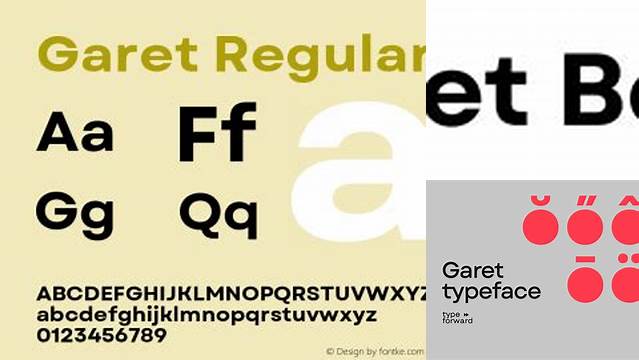
Hey guys! Looking for that perfect bold font to make your designs pop? Well, you've come to the right place! In this article, we're diving deep into the world of Garet Bold Font, a fantastic typeface that can add a touch of sophistication and strength to any project. We'll explore everything from what makes it so special to where you can snag a free download in TTF format. So, let's get started!
What is Garet Bold Font?
Garet Bold Font is a striking typeface known for its strong and contemporary design. It's a versatile font that works well in a variety of contexts, from headlines and logos to body text and branding materials. Its clean lines and bold strokes make it highly legible, ensuring your message is conveyed with clarity and impact. The font's modern aesthetic makes it a popular choice among designers looking to create a sleek and professional look. Whether you're working on a website, a poster, or a corporate document, Garet Bold Font can help you achieve a polished and eye-catching result. The font's versatility also extends to different design styles; it can be used in minimalist designs to add a bold statement or in more complex layouts to provide a strong visual anchor. It's the kind of font that can elevate any project, making it a must-have in your font library. The attention to detail in its design ensures that each character is perfectly formed, contributing to the overall harmonious look of your text. This meticulous craftsmanship is what sets Garet Bold Font apart and makes it a favorite among design professionals.
Why Choose Garet Bold Font for Your Projects?
Choosing the right font is crucial for any project, and Garet Bold Font offers a compelling blend of style and functionality. Its bold weight commands attention, making it ideal for headlines, titles, and other elements where you need to make a statement. The font’s clarity ensures readability, even at smaller sizes, making it suitable for body text as well. Garet Bold Font exudes a sense of confidence and professionalism, making it an excellent choice for corporate branding and marketing materials. Whether you're designing a website, a brochure, or a logo, this font can help you convey your message with impact and style. Its versatility also means it can adapt to different design aesthetics, from modern and minimalist to more traditional and classic styles. The font's strong visual presence helps to create a lasting impression, ensuring your designs stand out. Moreover, the availability of Garet Bold Font in TTF format makes it easily accessible and compatible with various operating systems and software. This ease of use, combined with its aesthetic appeal, makes it a practical and stylish choice for any design project. By choosing Garet Bold Font, you're investing in a typeface that will elevate your work and help you communicate effectively.
Using Garet Bold Font in Graphic Design
When it comes to graphic design, Garet Bold Font is a true workhorse. Its bold presence makes it an excellent choice for headlines, titles, and other prominent text elements. The font's clean and modern aesthetic adds a touch of sophistication to any design, while its legibility ensures that your message is easily understood. Whether you're creating posters, brochures, or website layouts, Garet Bold Font can help you achieve a polished and professional look. Its strong visual impact makes it particularly effective for branding materials, helping to create a memorable and cohesive identity. In logo design, Garet Bold Font can convey strength, confidence, and modernity, making it a popular choice for companies looking to project a bold image. The font also works well in combination with other typefaces, allowing you to create visual contrast and hierarchy in your designs. Pair it with a lighter sans-serif font for body text or a script font for a touch of elegance. The versatility of Garet Bold Font means it can be used in a wide range of design styles, from minimalist and contemporary to more traditional and classic. Its ability to command attention while maintaining clarity makes it an invaluable asset for any graphic designer. By incorporating Garet Bold Font into your designs, you can ensure that your message is not only seen but also remembered.
Using Garet Bold Font in Web Design
In the realm of web design, Garet Bold Font shines as a versatile and impactful choice. Its bold nature makes it perfect for headlines and navigation menus, drawing the user's eye and creating a clear visual hierarchy. The font’s legibility is crucial for web content, ensuring that visitors can easily read and engage with your site's text. Garet Bold Font can help establish a strong brand presence online, conveying a sense of professionalism and modernity. Its clean lines and contemporary style make it well-suited for a variety of website designs, from minimalist layouts to more complex, visually rich sites. When used for headings, Garet Bold Font can create a strong visual anchor, guiding users through the content. In body text, it provides a clear and readable experience, ensuring that your message is effectively communicated. The font's consistency across different browsers and devices is also a significant advantage, ensuring that your website looks great no matter how it's accessed. Garet Bold Font can be used in conjunction with other fonts to create visual interest and contrast, enhancing the overall aesthetic of your website. For example, pairing it with a lighter sans-serif or a serif font for body text can create a balanced and engaging reading experience. By incorporating Garet Bold Font into your web design, you can create a website that is both visually appealing and highly functional.
Pairing Garet Bold Font with Other Fonts
The art of typography often lies in pairing fonts effectively, and Garet Bold Font offers a multitude of possibilities. Its bold and modern style makes it a versatile partner for a variety of other typefaces. One popular approach is to pair Garet Bold Font with a lighter weight sans-serif font for body text. This creates a visual contrast that makes the headings stand out while ensuring the body text remains readable and unobtrusive. Fonts like Open Sans, Lato, or Montserrat can work beautifully in this combination, providing a clean and contemporary feel. Another option is to pair Garet Bold Font with a serif font, such as Times New Roman or Georgia, for a more traditional and classic look. This pairing can be particularly effective in projects where you want to convey a sense of authority and professionalism. For a touch of elegance and sophistication, consider pairing Garet Bold Font with a script or handwritten font, such as Brush Script or Pacifico. This combination can add a personal and creative touch to your designs, making them stand out. When pairing fonts, it's essential to consider the overall tone and style of your project. Garet Bold Font's versatility allows it to adapt to different aesthetics, but the key is to choose fonts that complement each other and create a cohesive visual experience. By experimenting with different combinations, you can discover unique and impactful pairings that elevate your designs.
Garet Bold Font for Logos and Branding
When it comes to logos and branding, Garet Bold Font can be a game-changer. Its bold presence and clean lines make it an ideal choice for creating a strong and memorable brand identity. A well-designed logo is crucial for establishing brand recognition, and Garet Bold Font can help your logo stand out from the competition. Its modern aesthetic conveys a sense of confidence and professionalism, making it suitable for a wide range of industries. Whether you're designing a logo for a tech startup, a fashion brand, or a corporate entity, Garet Bold Font can help you communicate your brand's message effectively. The font's legibility ensures that your brand name is easily readable, even at smaller sizes, making it versatile for different applications, from business cards to billboards. In addition to logos, Garet Bold Font can be used in other branding materials, such as letterheads, brochures, and websites, to create a cohesive and consistent brand image. Its versatility allows it to adapt to different design styles, ensuring that your branding remains fresh and relevant. By incorporating Garet Bold Font into your branding strategy, you can create a visual identity that is both impactful and enduring. The font's strong character and modern appeal will help your brand make a lasting impression on your target audience.
Garet Bold Font: A Recap and Conclusion
So, Garet Bold Font – what a fantastic typeface, right? We've covered a lot in this article, from what makes it special to how to download and install it, and even how to use it effectively in your designs. To recap, Garet Bold Font is a modern and bold typeface that's perfect for headlines, logos, branding, and more. Its clean lines and strong presence make it a versatile choice for a wide range of projects. You can download it for free in TTF format from various reputable websites, just remember to check the licensing terms before using it commercially. Installing it is a breeze on both Windows and macOS, and once it's installed, you'll have a powerful tool at your disposal for all your design needs. Remember to use bold fonts strategically and sparingly to maximize their impact and maintain readability. Pairing Garet Bold Font with other fonts can create a visually appealing and balanced design, and exploring the different weights and styles within the Garet Font Family can unlock even more possibilities. In conclusion, Garet Bold Font is a valuable asset for any designer's toolkit. Its bold presence, clean lines, and versatility make it a top choice for creating impactful and memorable designs. So go ahead, download it, experiment with it, and let your creativity shine! Happy designing, guys!